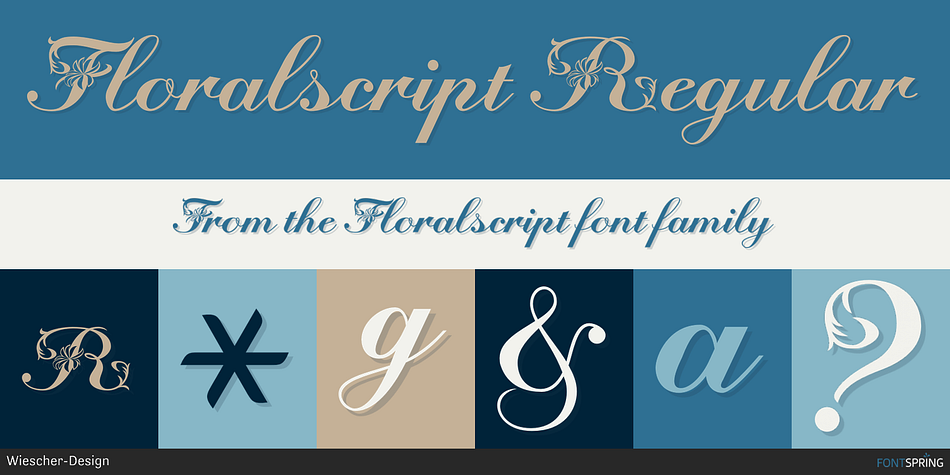
Floralscript Regular
Floralscript is a script font published by Wiescher-Design.
Floralscript is an english copperplate script decorated with flowers and curly leaves.